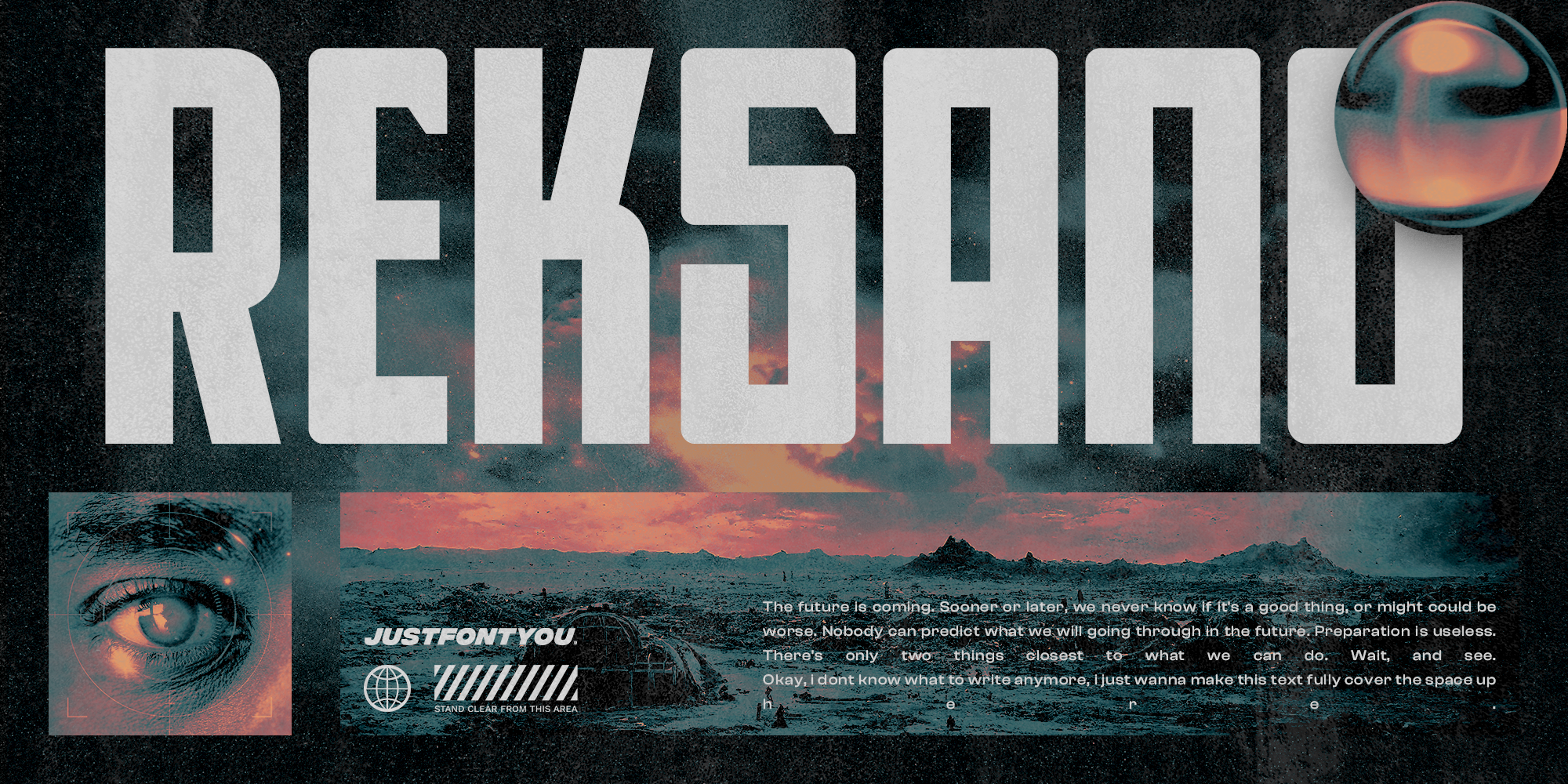
If you’re searching for a sleek and contemporary sans-serif font, Reksano Font Free Download is an excellent choice. With its clean lines and geometric structure, this font is perfect for branding, editorial layouts, web design, and digital media projects that require clarity and style.
Reksano Font Free Download offers excellent readability and a professional look that suits a wide range of applications. Its modern design gives your text a polished and confident feel, making it ideal for startups, tech companies, and creative agencies.
Perfect for projects that demand a fresh and contemporary aesthetic, Reksano adds a sophisticated touch to your designs without overpowering your message.
In summary, Reksano Font Free Download is a versatile and stylish sans-serif font that enhances your visual communications with clarity and modern elegance. Try it free for testing, then secure the license for commercial use.